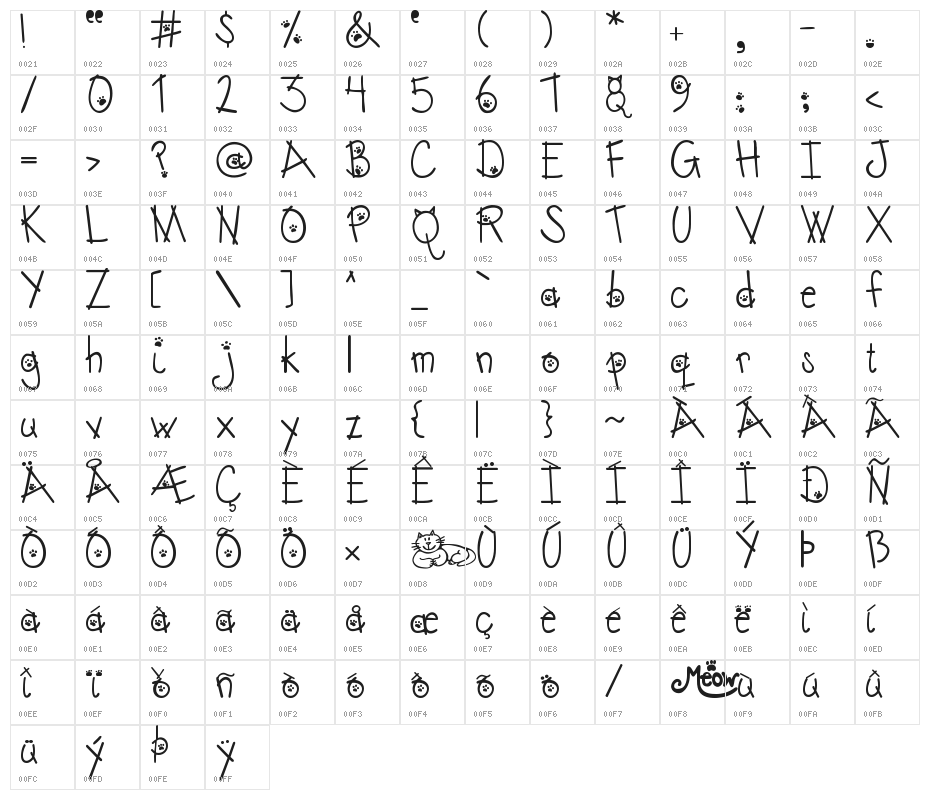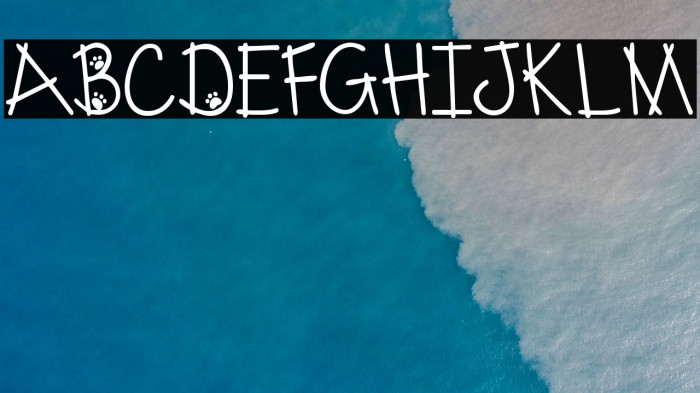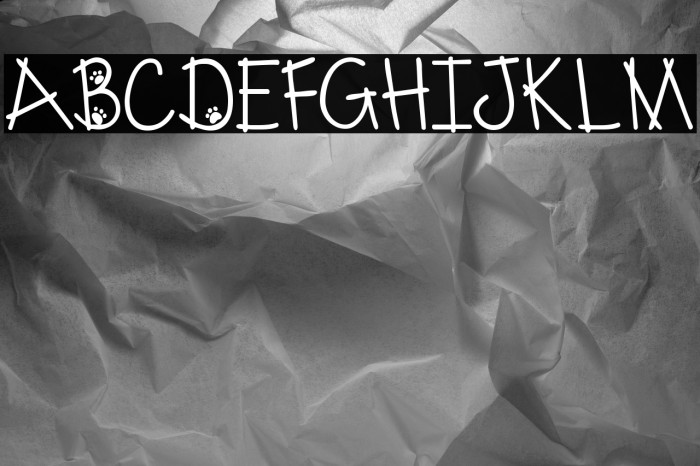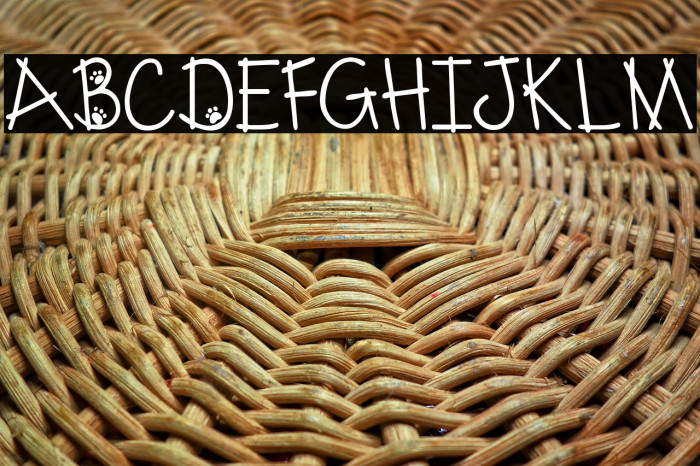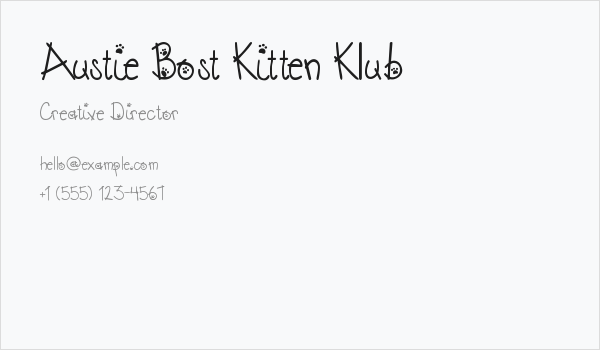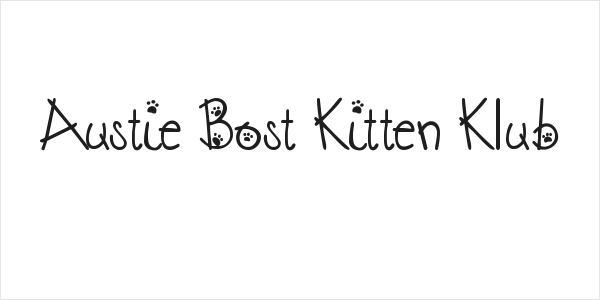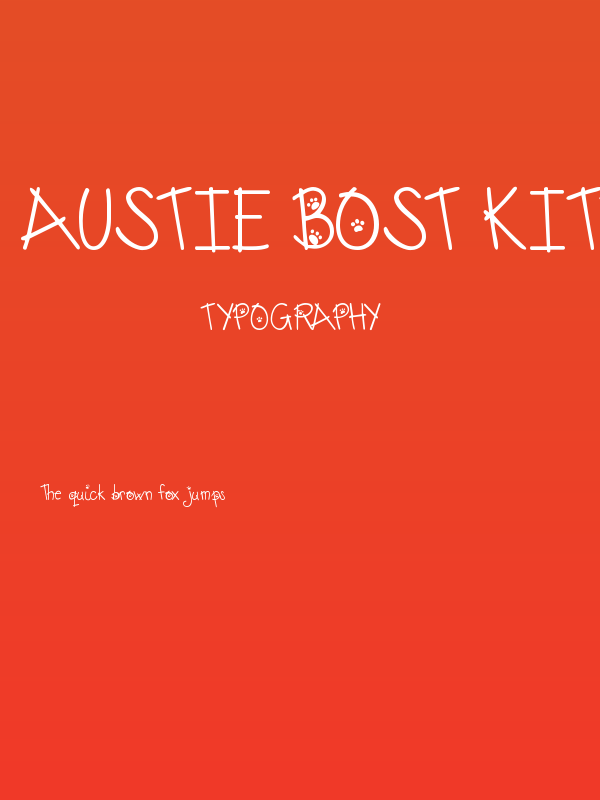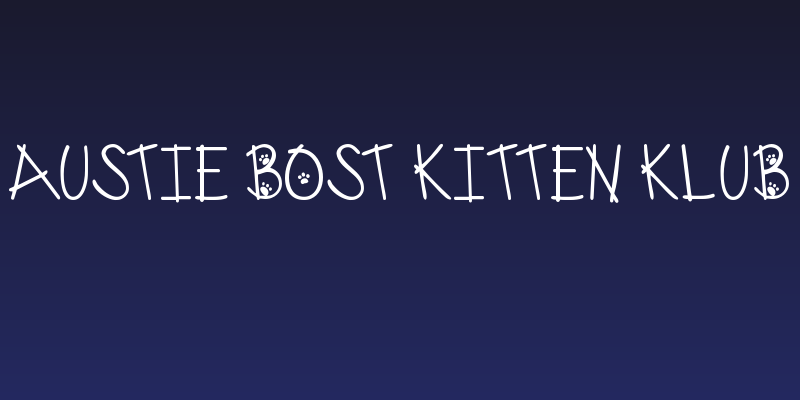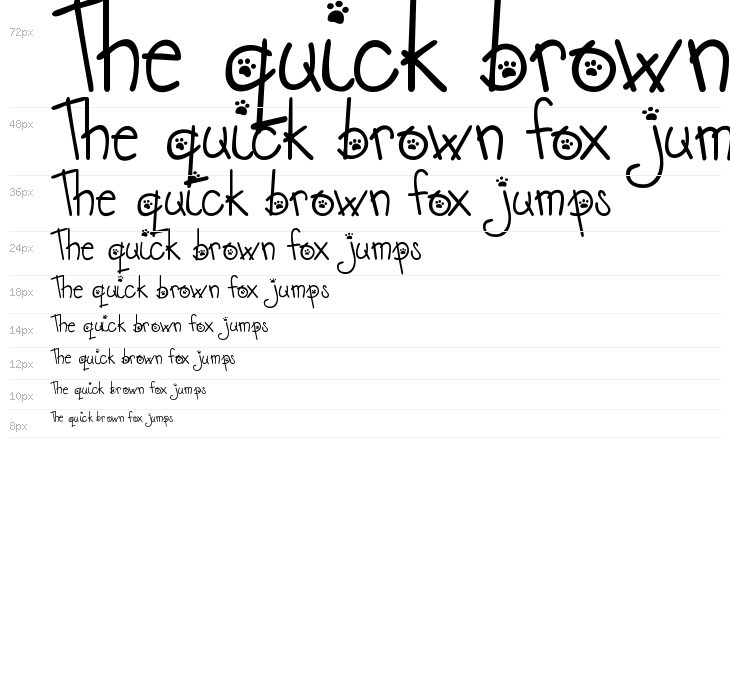
Austie Bost Kitten Klub Font
Austie Bost Kitten Klub Description
This playful and whimsical font features a unique design with paw prints integrated into the characters, giving it a charming and fun appearance. The letters are slightly irregular, adding a hand-drawn feel that enhances its playful nature. The uppercase letters are tall and narrow, while the lowercase letters have a more rounded and casual look. The numbers and special characters maintain the same playful style, making it suitable for projects that require a lighthearted and friendly touch.
| Proposed Projects | Ideal for children's books, pet-related branding, playful invitations, or any project that benefits from a whimsical and friendly aesthetic. |